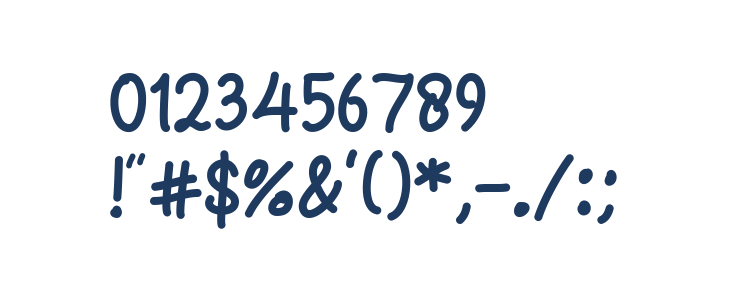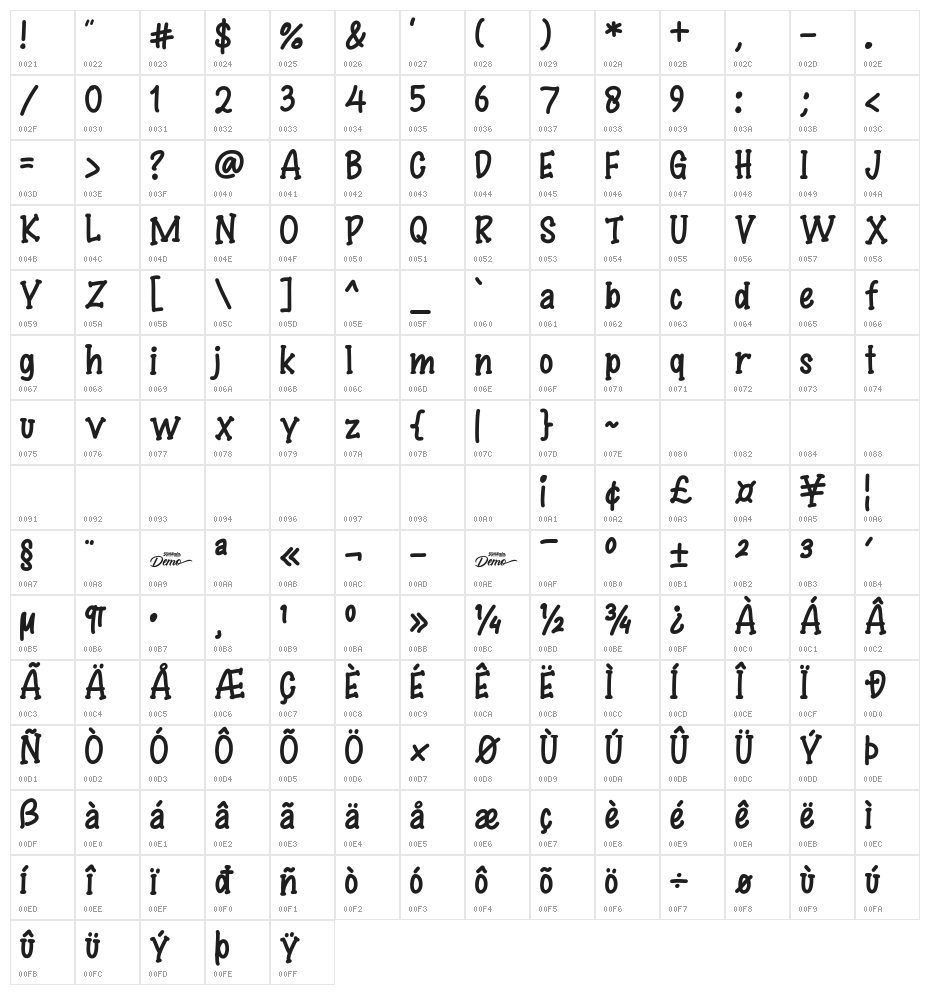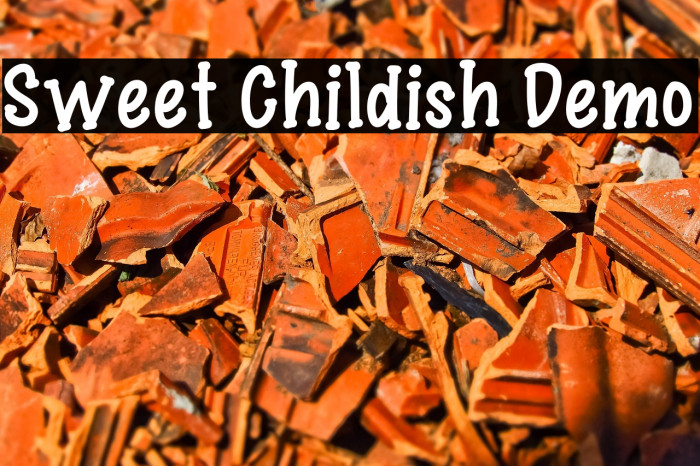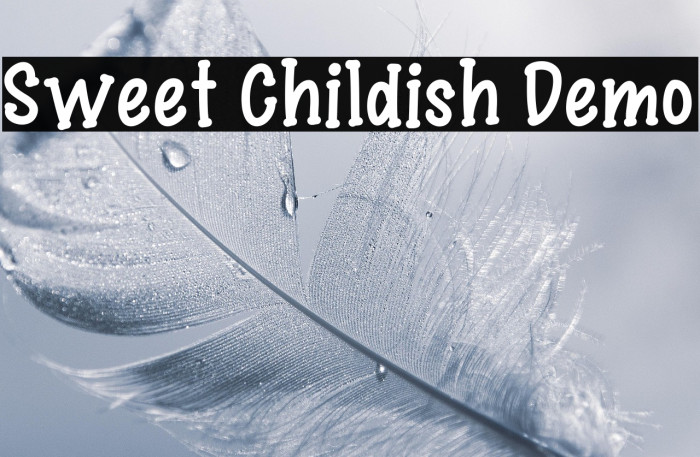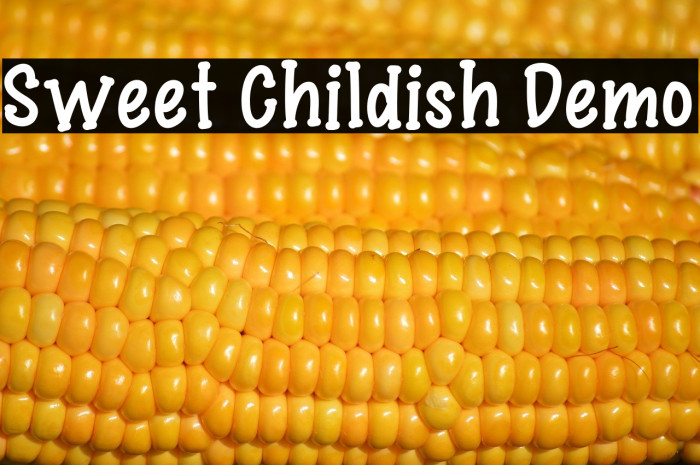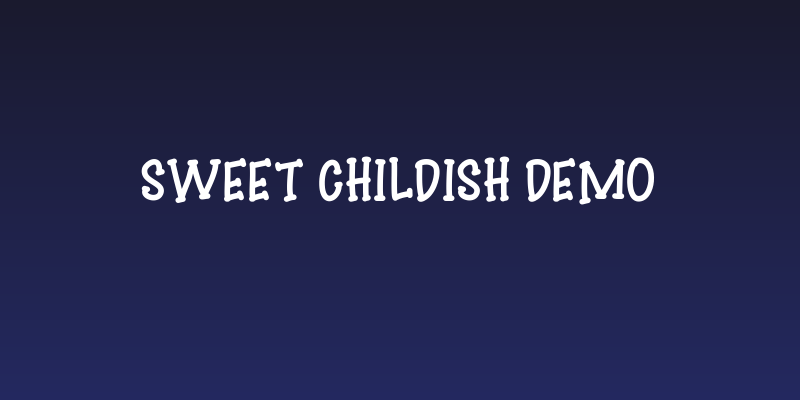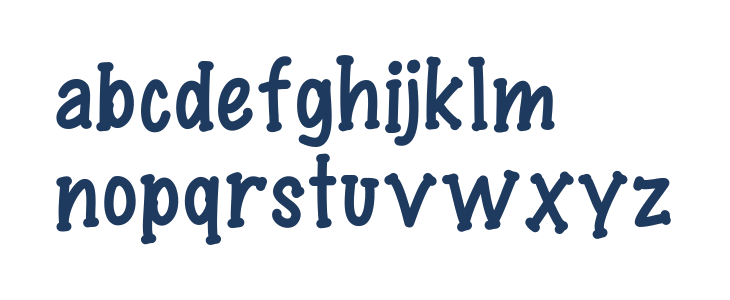
Sweet Childish Demo Font
Sweet Childish Demo Description
This playful and whimsical font features a hand-drawn style with a slightly irregular baseline, giving it a lively and energetic appearance. The characters are bold and rounded, with a friendly and approachable feel. The strokes are consistent in thickness, providing a uniform look across all letters and numbers. The font includes a full set of uppercase and lowercase letters, numerals, and a variety of special characters, making it versatile for different design needs. Its informal style is perfect for projects that require a touch of fun and creativity.
Overall StylePlayful
Proposed ProjectsIdeal for children's books, playful branding, greeting cards, and creative posters.